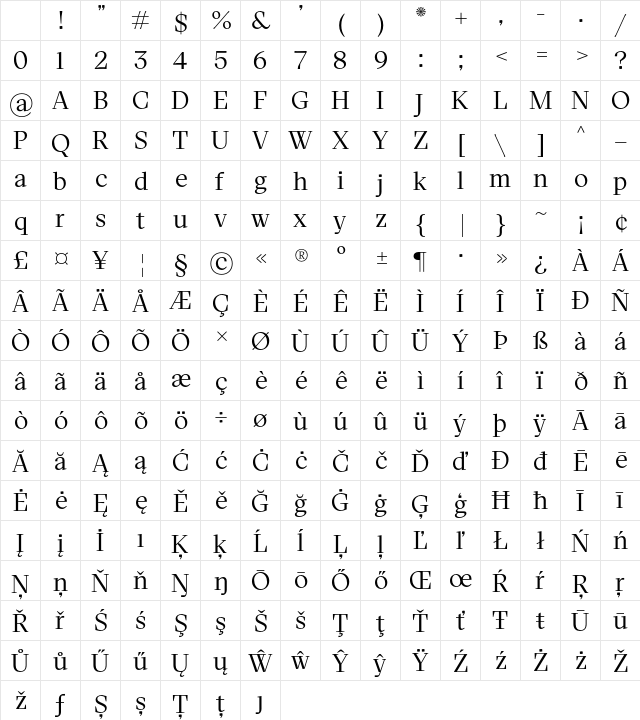
FK Roman Display is built around its visual character rather than neutral utility - its distinctive forms are designed to make an impression at display sizes.
Font Pairing: Pair with a clean neutral sans-serif for body copy to let FK Roman Display's character lead without overwhelming the composition.
Pro Tip: Use FK Roman Display exclusively at display sizes - it was designed to be seen, not read at length. Let a neutral companion handle body copy.